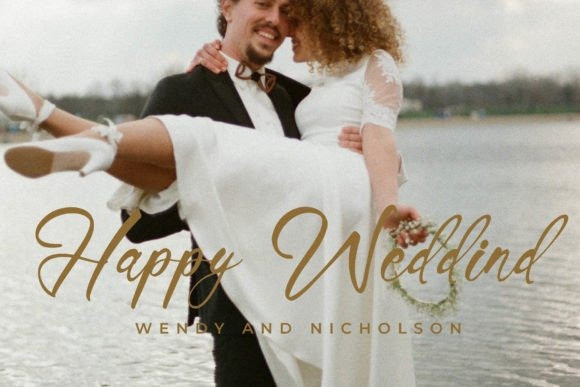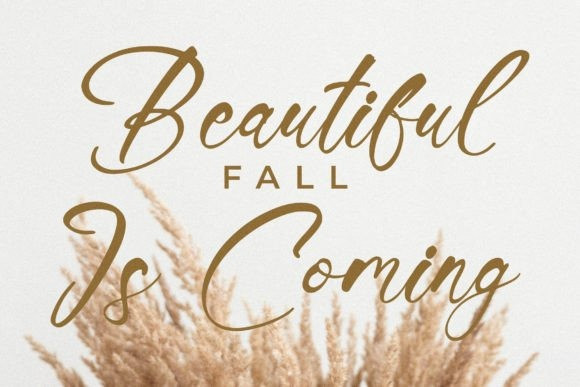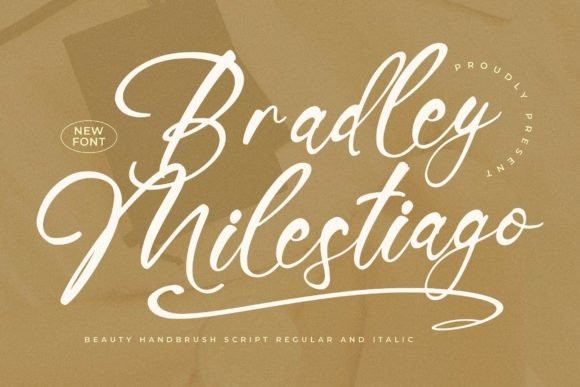
Bradley Milestiago Font
Bradley Milestiago Font – Beauty Handbrush Script , from Glorytype Studio, suitable for any projects such as: logos, branding projects, homeware designs, product packaging, mugs, quotes, posters, shopping bags, t-shirts, book covers, name card, invitation cards, greeting cards, label, photography, watermark, special events, and all your other lovely projects that need a beautiful script taste.